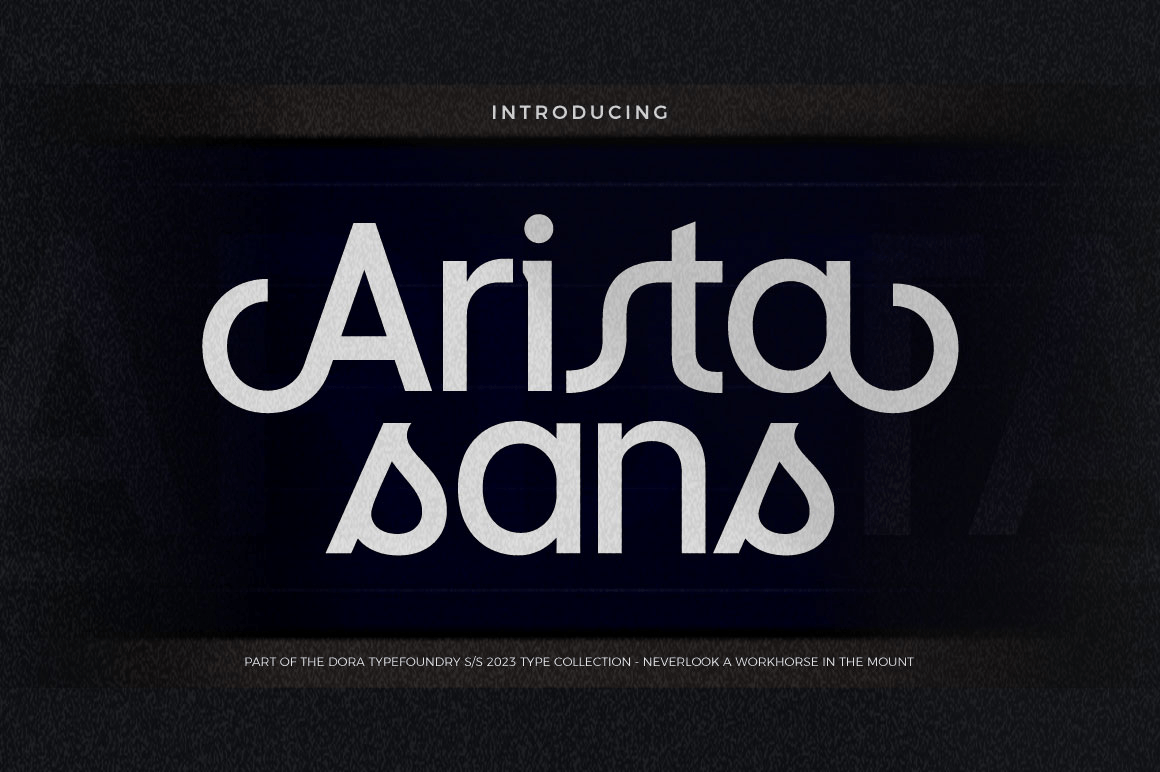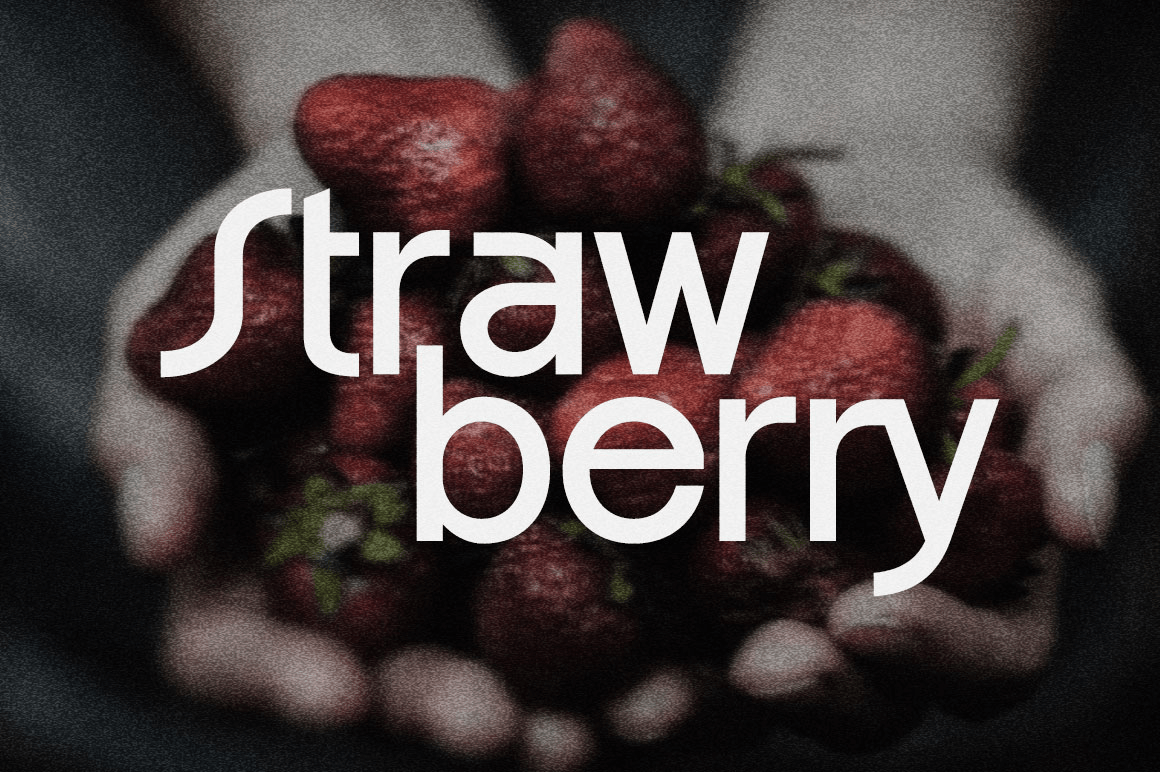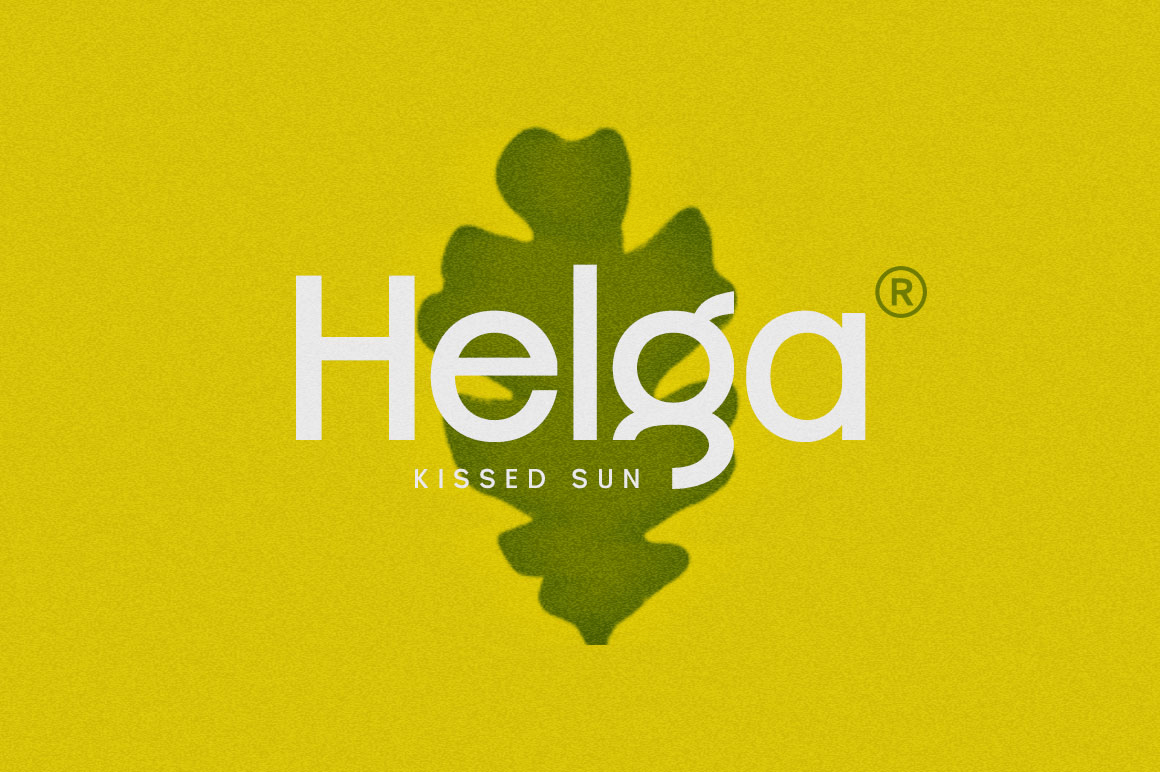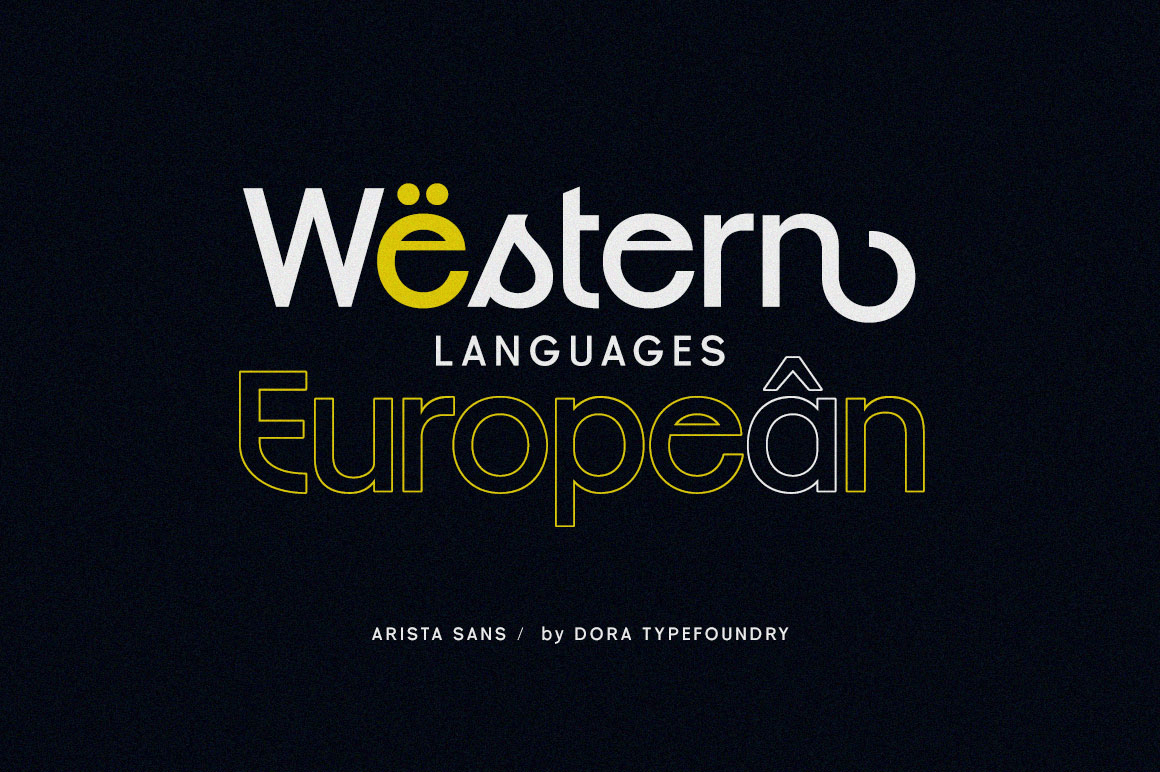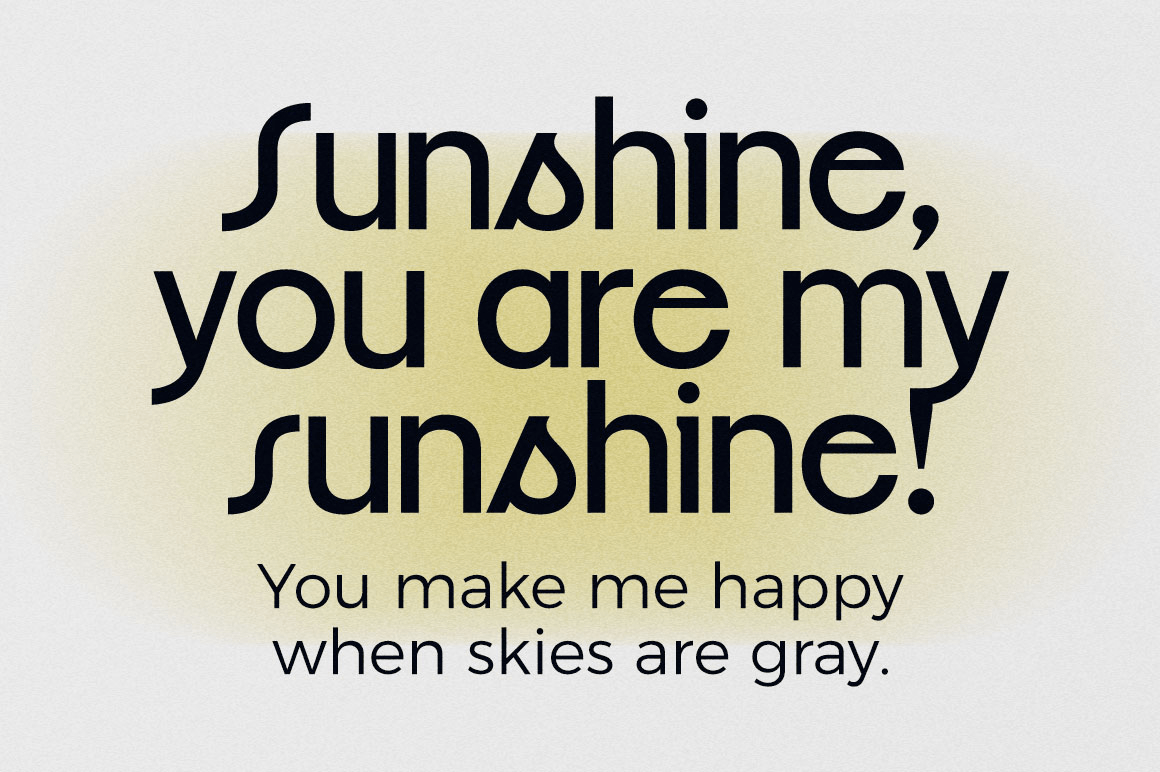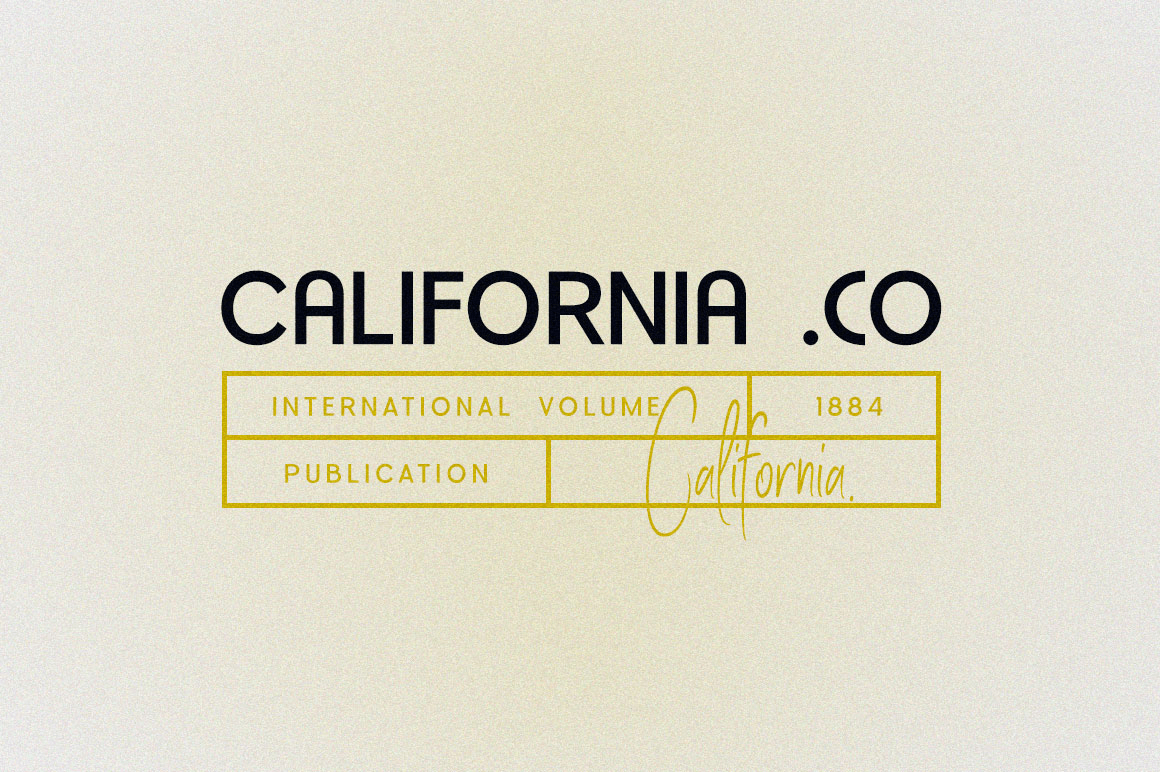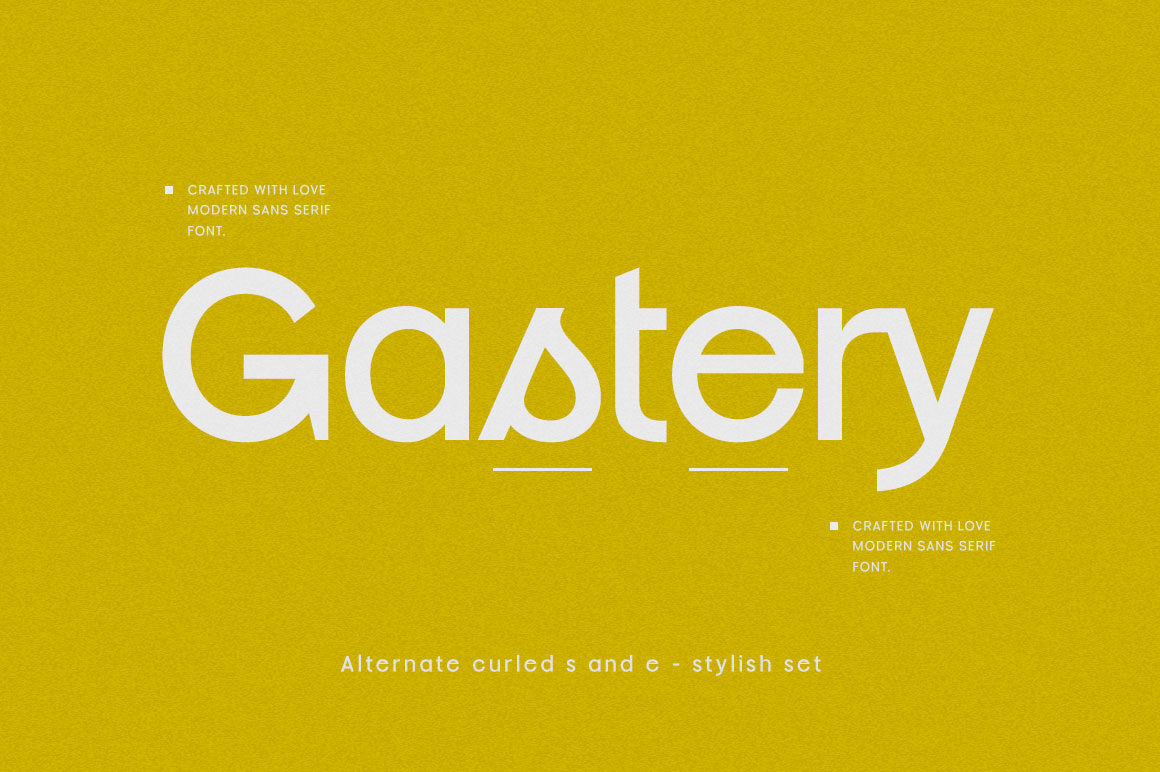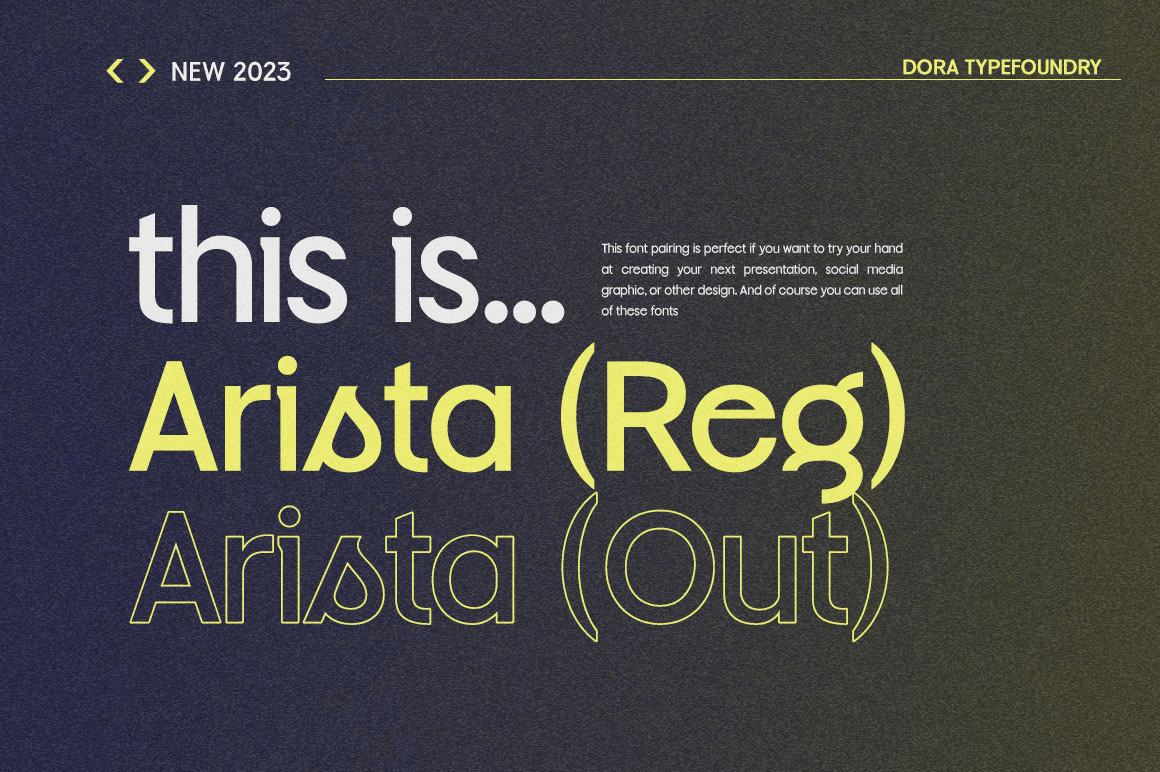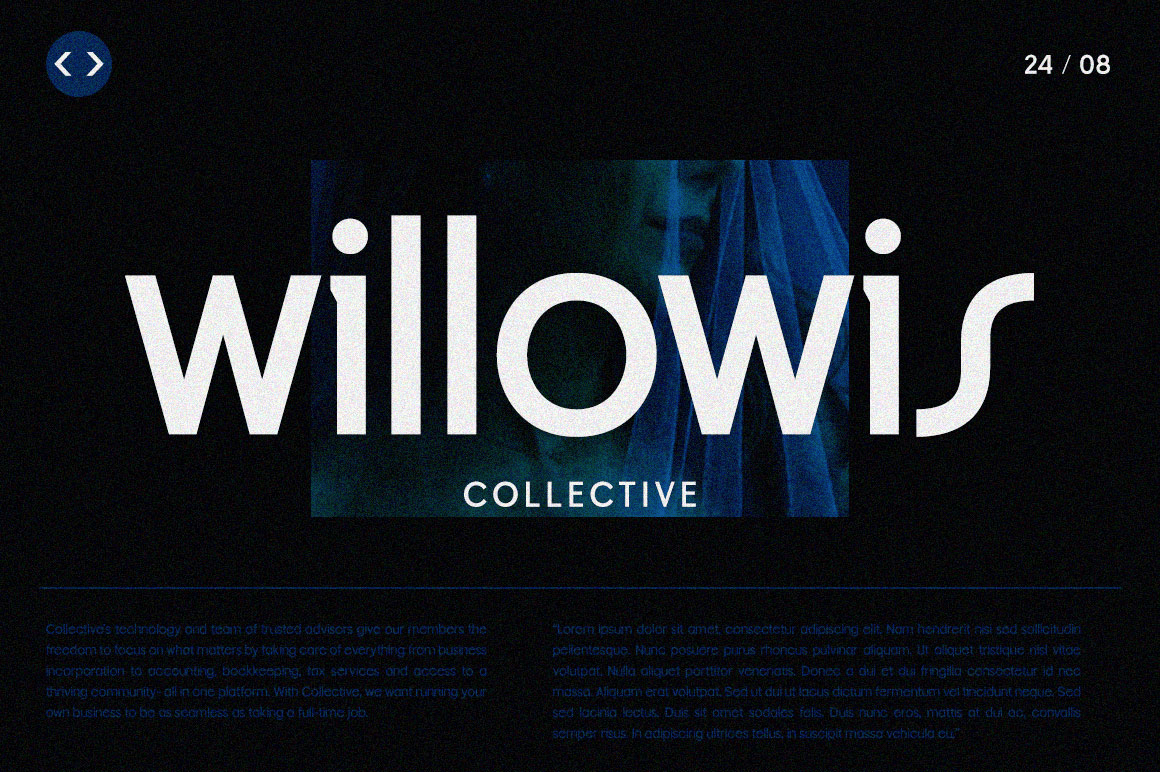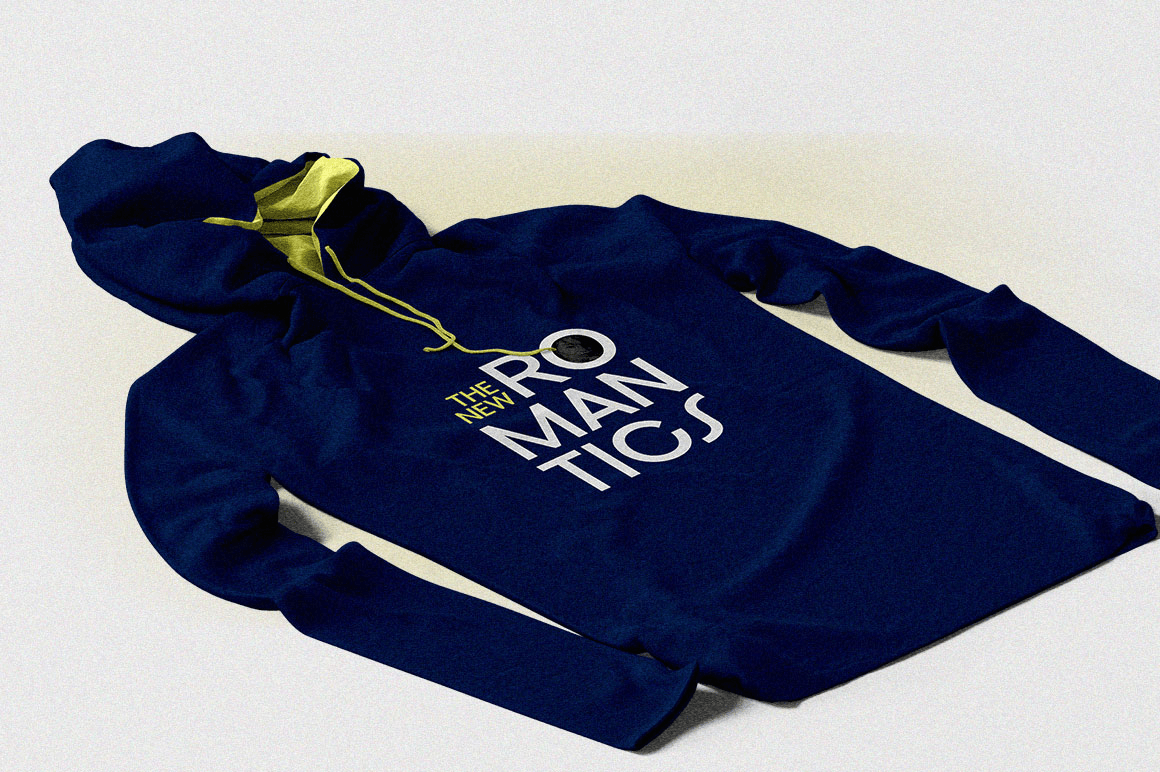
Arista Sans
Font Family by Dora Typefoundry
Arista Sans is a true sans serif typeface enhanced with bold, high-contrast geometric shapes.
Arista is perfect if you want to try to make your presentation perfect for all purposes, social media graphics or other designs. And of course you can use this font and pair it well with a bold sans serif.
Features:
• All Caps Font with different uppercase and lowercase
• Number & Symbol
• Supported Languages
• Alternates and Ligatures